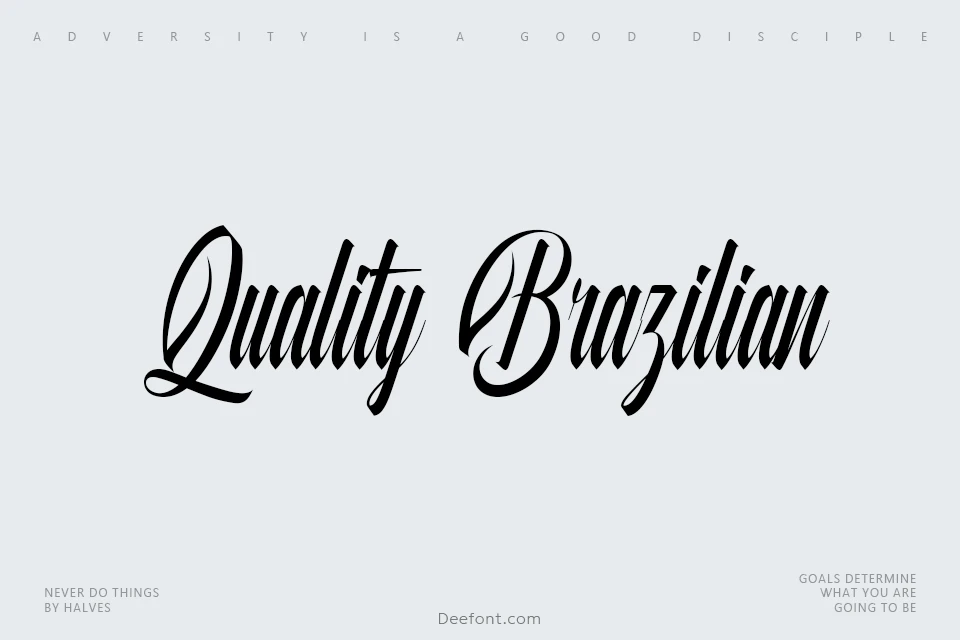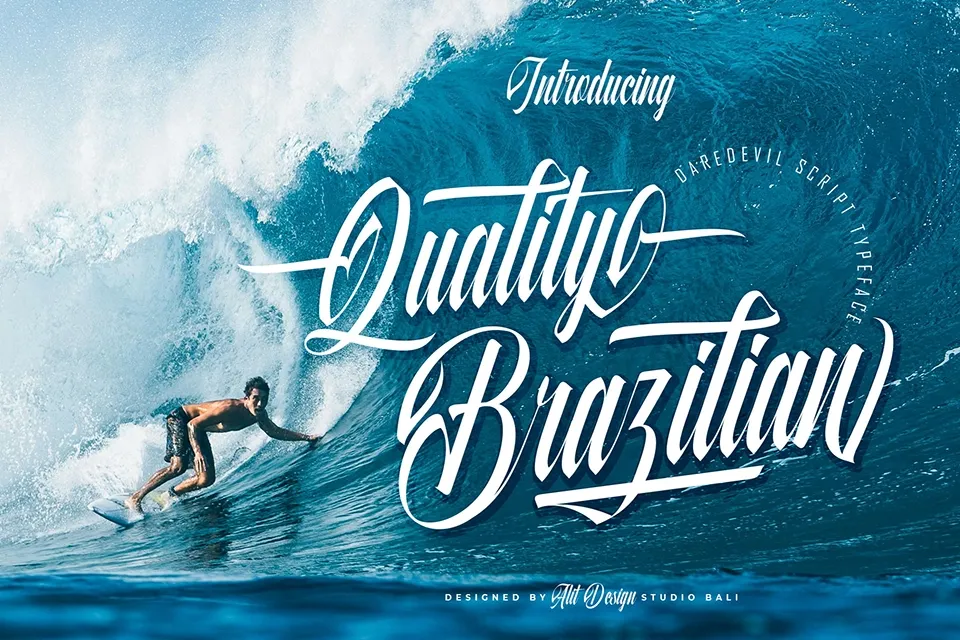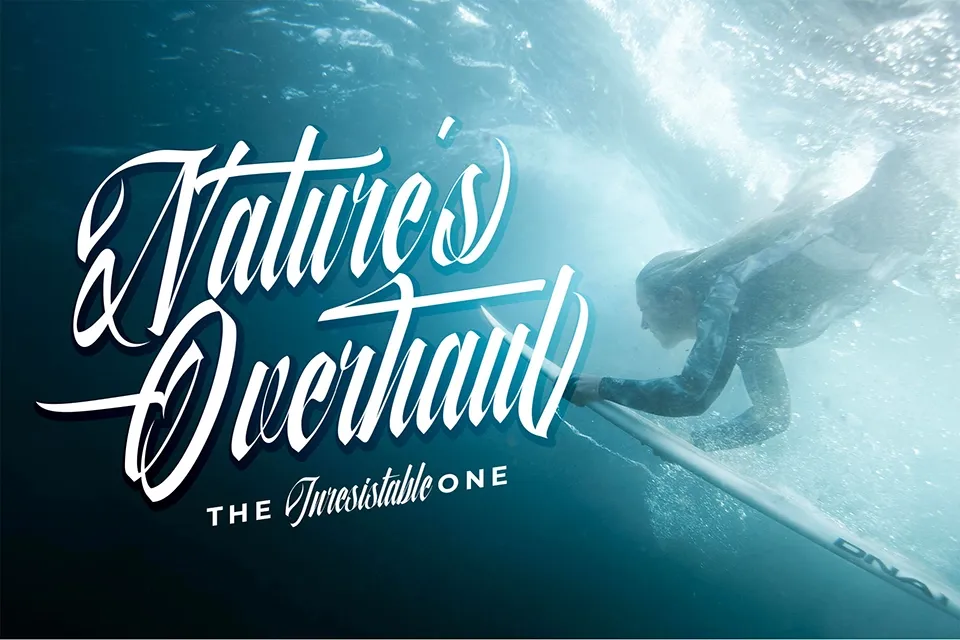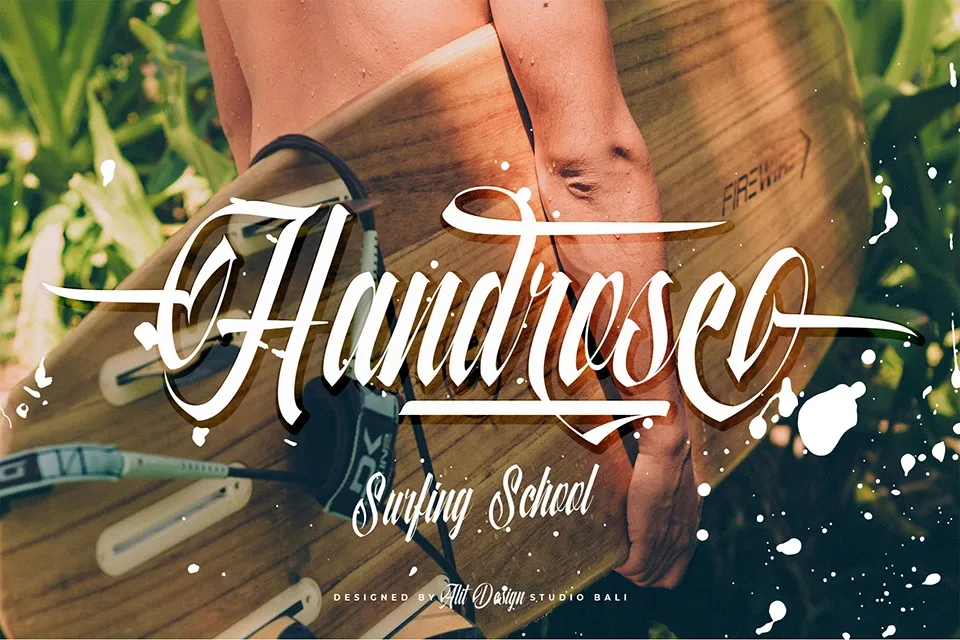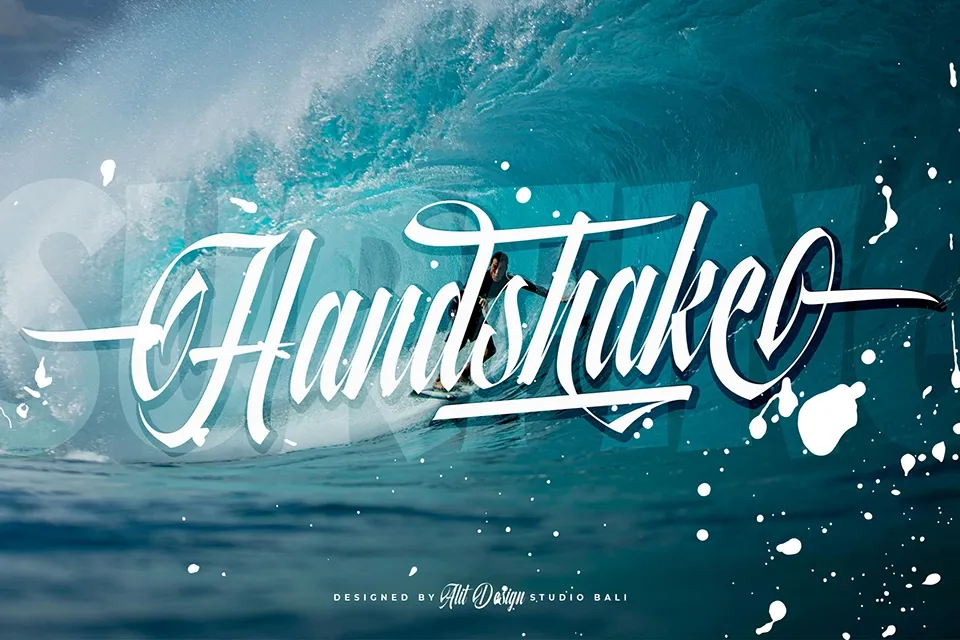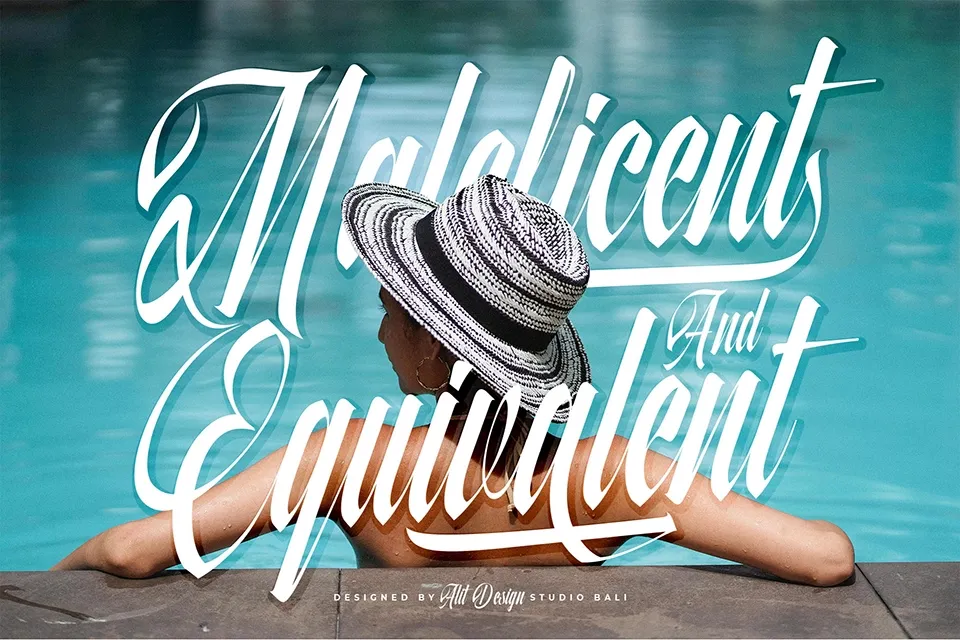
Quality Brazilian Font
Quality Brazilian Font is a masterful script typeface designed to capture the vibrant spirit of Brazil. With its dynamic, bold strokes and elegant swashes, this font infuses your designs with energy, movement, and a touch of Brazilian flair. Perfect for eye-catching headlines, stylish logos, and summer-themed projects, Quality Brazilian Font offers versatility and visual impact for any creative endeavor.